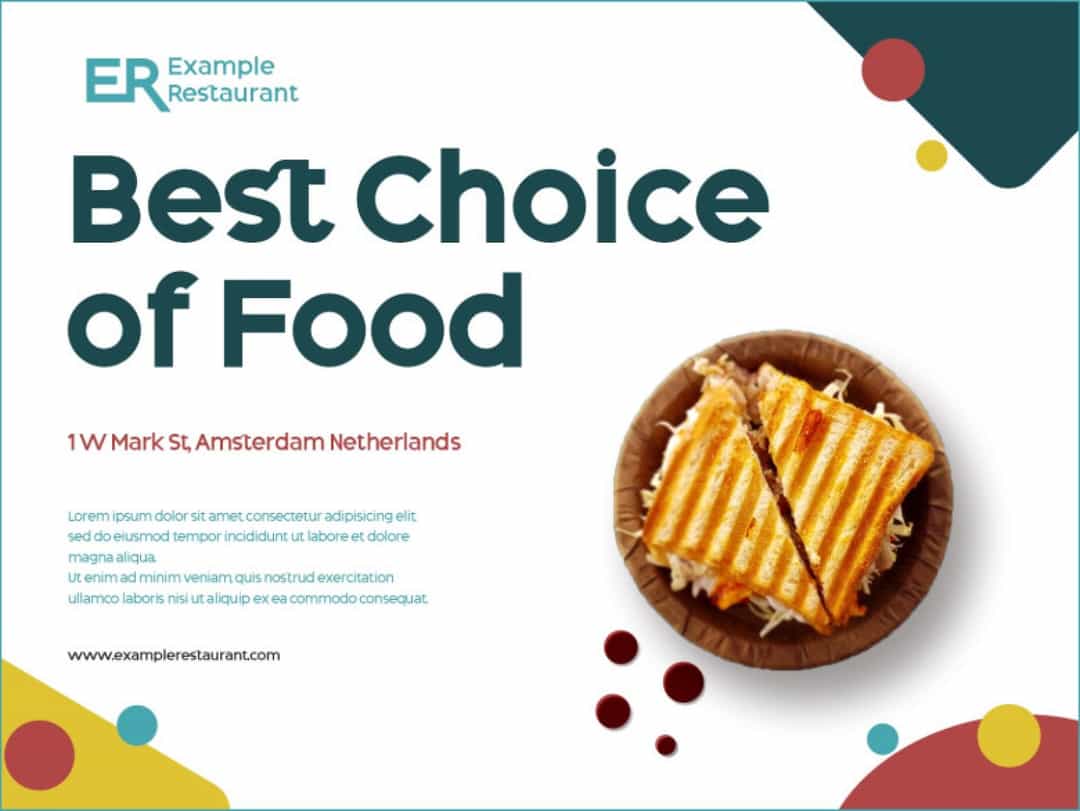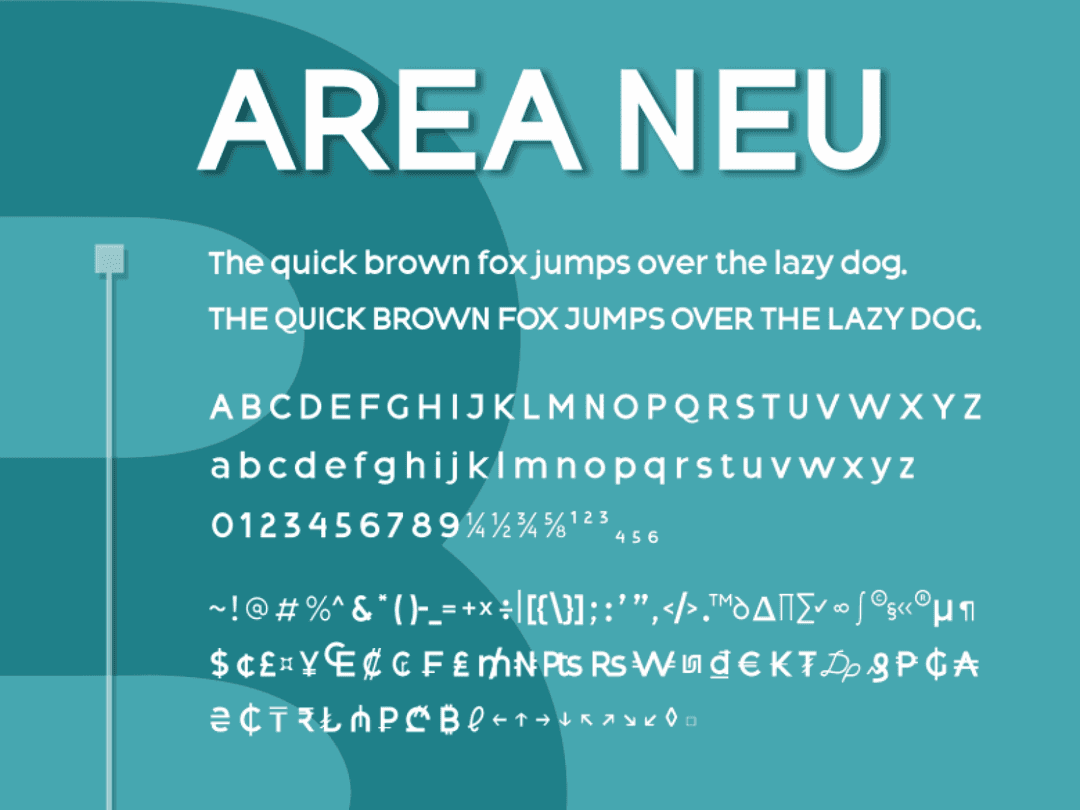
Area Neu is an elegant modern sans serif font designed to complement all designs. Perfect for apparel logos, skateboard graphics and logos of any kind; Area Neu is sure to enhance any project and design you may create!